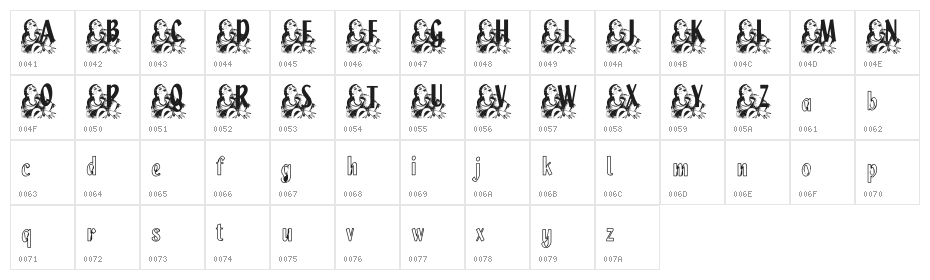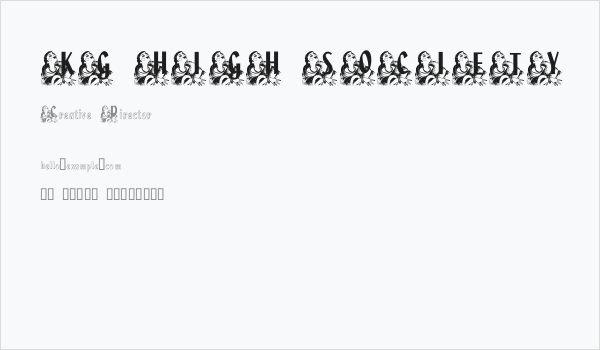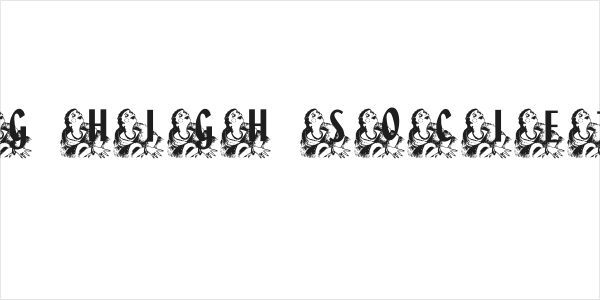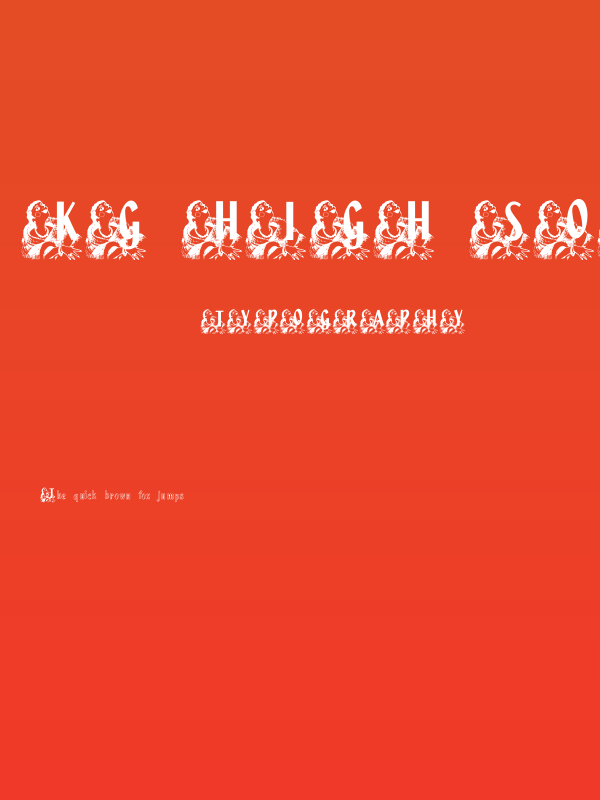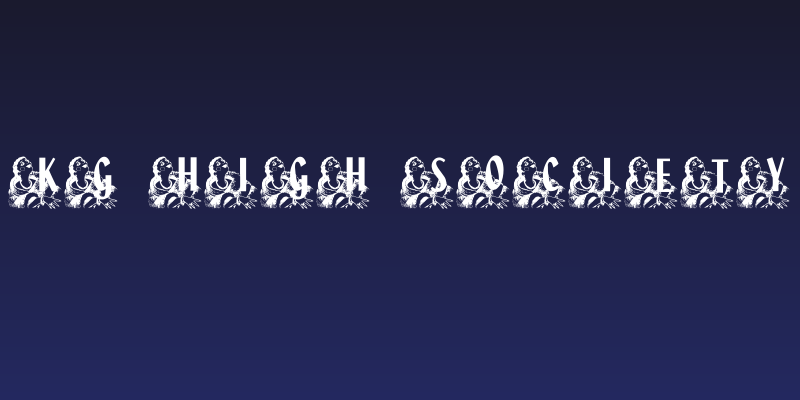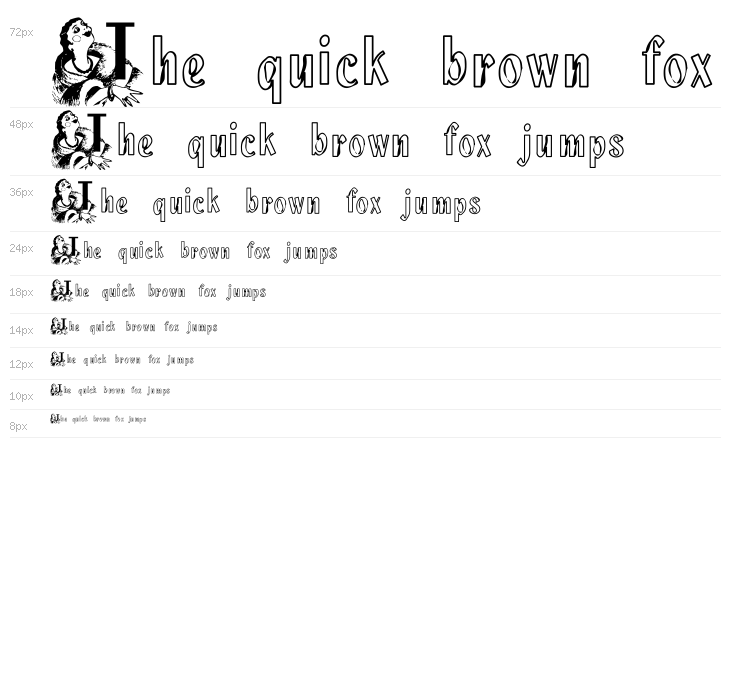
KG HIGH SOCIETY Font
KG HIGH SOCIETY Description
This font features an ornate and decorative style, with uppercase letters incorporating intricate floral or ornamental designs within each character. The lowercase letters maintain a more straightforward, outlined appearance, providing a contrast to the elaborate uppercase. The font's unique design elements make it stand out, particularly in the uppercase, where the embellishments add a sense of elegance and sophistication. The lowercase letters are more minimalistic, with a clean and open outline that balances the overall aesthetic. This combination of ornate and simple elements creates a versatile font that can be used in various creative projects.